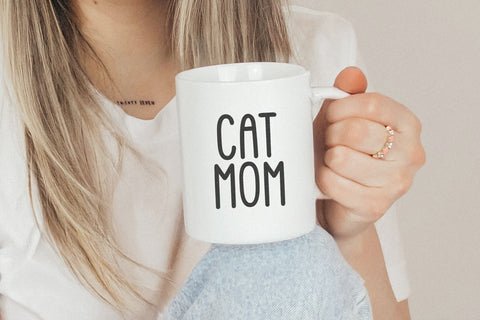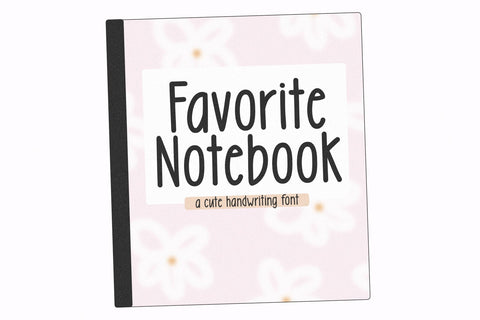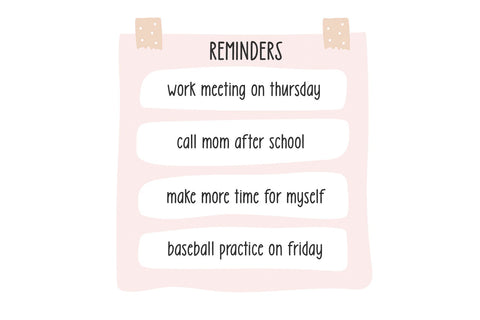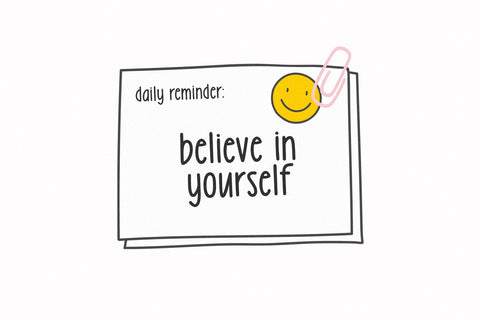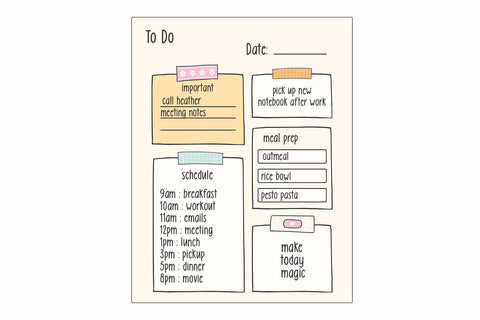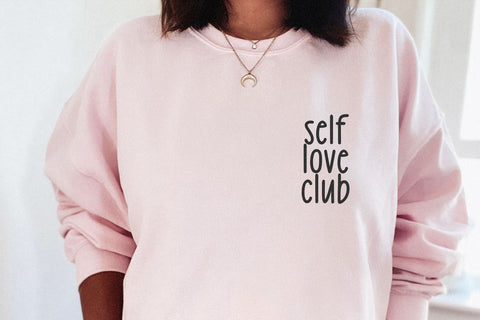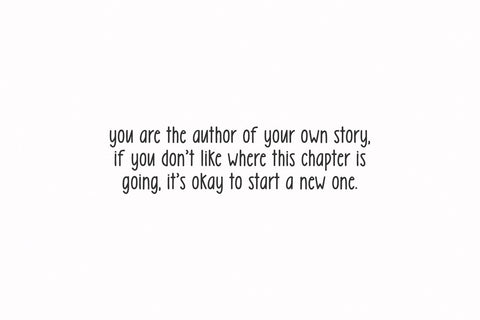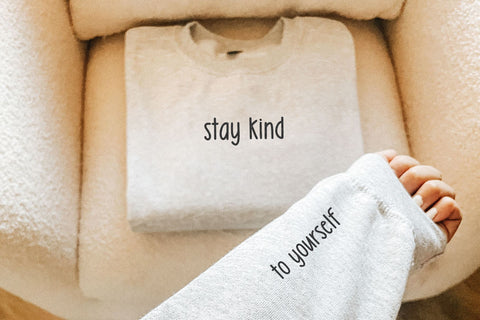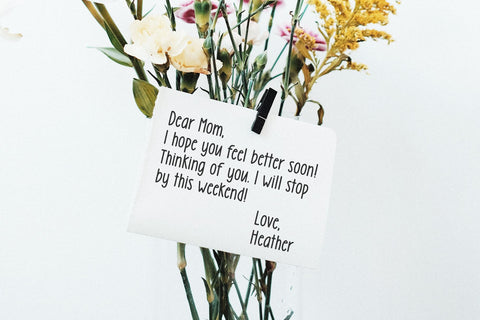
Favorite Notebook - Cute Handwriting Font
Favorite Notebook is a cute handwriting font.
This font is perfect for cricut projects, quotes, goodnotes, planners, handwritten notes, logos, teachers and more!